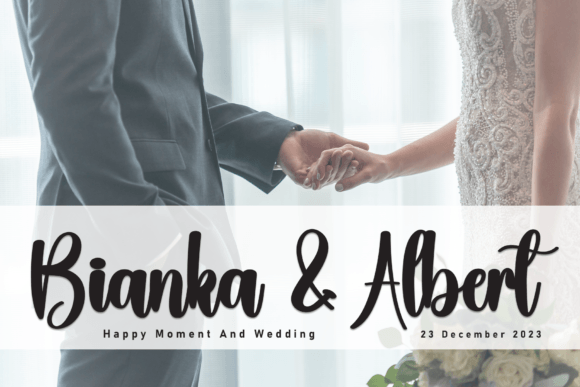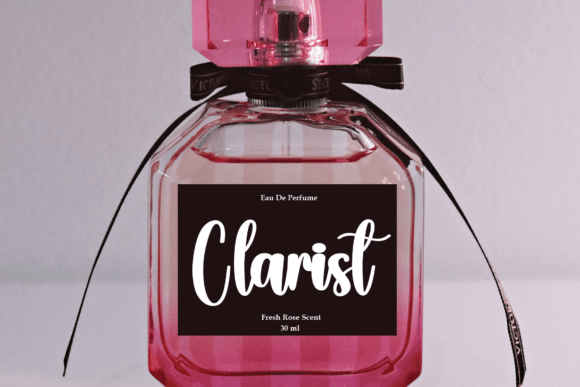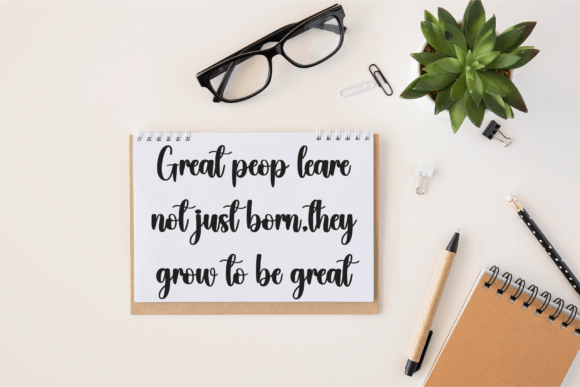
Introduction to Hallowen Bundle Font
As a designer, you’ve probably experienced that moment when a font just clicks. You’re working on a project, and you’re trying to convey a specific feeling or atmosphere. Suddenly, you stumble upon a font that seems to capture the essence of your creative vision. For many of us, this moment is what makes design so magical.
One font that has captured the hearts of many designers is the Hallowen Bundle Font. This elegant and charming font is a game-changer for any design project that requires a handwritten touch. Whether you’re working on wedding invitations, thank you cards, or logos, this font is sure to elevate your design to the next level.
Key Features of Hallowen Bundle Font
- High-quality design resource perfect for creative projects, including Halloween-themed decorations and costumes.
- Includes a range of unique and spooky characters, with transparent backgrounds for easy customization and layering.
- Designed with a high level of detail and intricacy, making it perfect for designers looking to add a touch of elegance to their Halloween-themed projects.
- Size: The font bundle includes over 100 unique characters, including letters, symbols, and icons, providing endless possibilities for creative expression.
Honest Review: Hallowen Bundle Font
I recently came across the Hallowen Bundle Font, a free download that caught my attention as a design resource for my upcoming creative project. The first thing I noticed was the variety of fonts included in the bundle, each with a unique and spooky flair.
The Hallowen Bundle Font offers a range of fonts that work well for various design purposes: ✨ Gothic-inspired fonts perfect for horror-themed projects, ✨ elegant cursive fonts suitable for invitations and greeting cards, and ✨ bold sans-serif fonts ideal for headings and titles.
The fonts are available in high quality, transparent backgrounds, making them easy to work with and edit in any design software. I appreciate the simplicity and flexibility of the design resource.
However, I did encounter some limitations: ⚠️ The font sizes may not be as scalable as I would like, and some fonts may require additional editing to achieve the desired effect. Additionally, the bundle could benefit from more comprehensive documentation and tutorials for users who are new to font design.
Overall, I’m impressed with the Hallowen Bundle Font, and I appreciate the effort put into creating a free and accessible design resource. With some minor tweaks and improvements, it has the potential to become an essential tool for designers working on spooky and creative projects.
Key Features:
- High-quality fonts with transparent backgrounds
- Varied font styles and designs
- Perfect for horror-themed and creative projects
The Hallowen Bundle Font is perfect for creating spooky designs for Halloween-themed projects, such as invitations, posters, and social media graphics. It’s also great for adding a touch of whimsy to other creative projects, such as party decorations and gift tags.